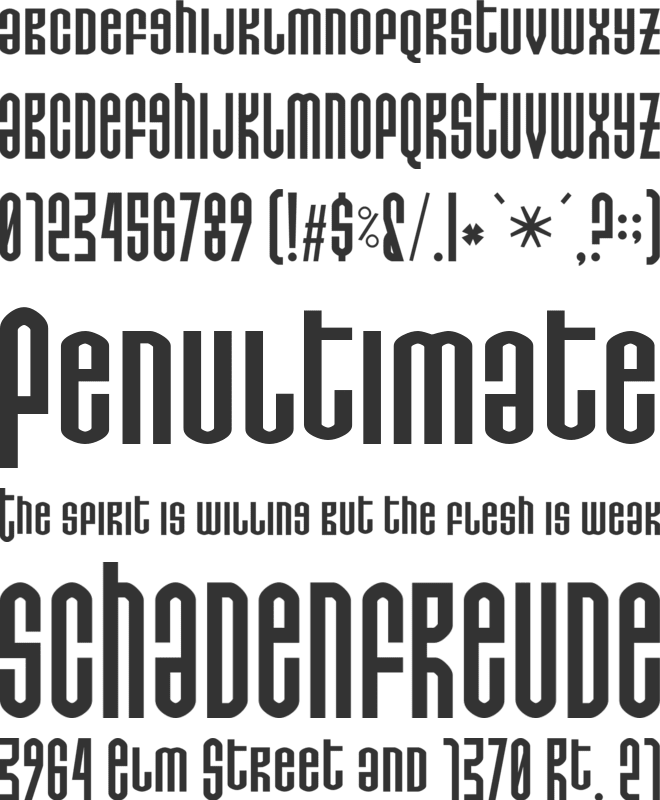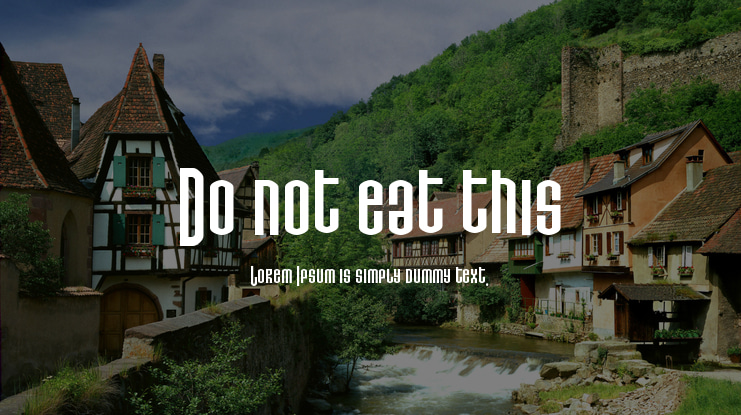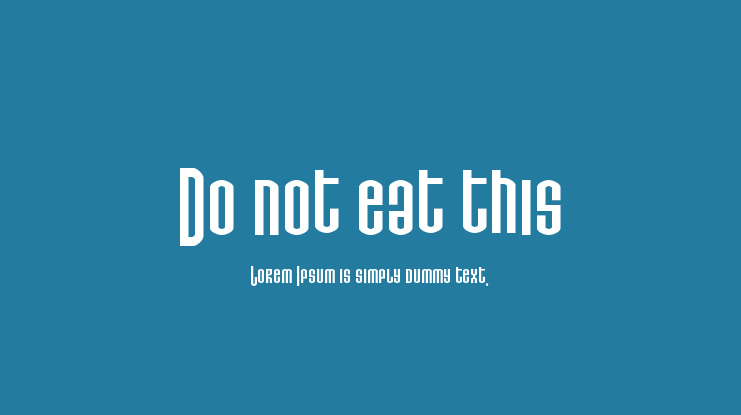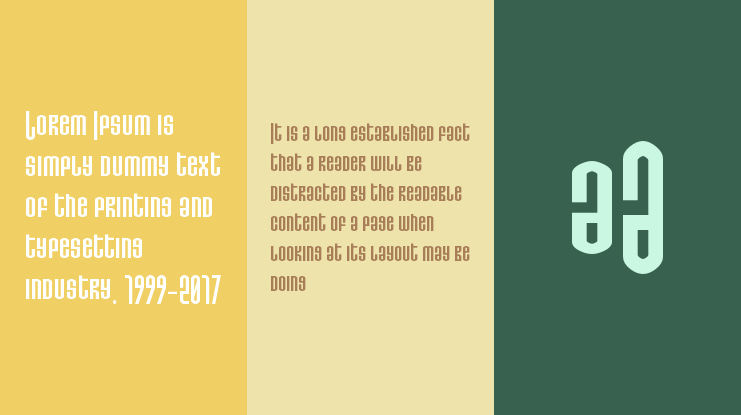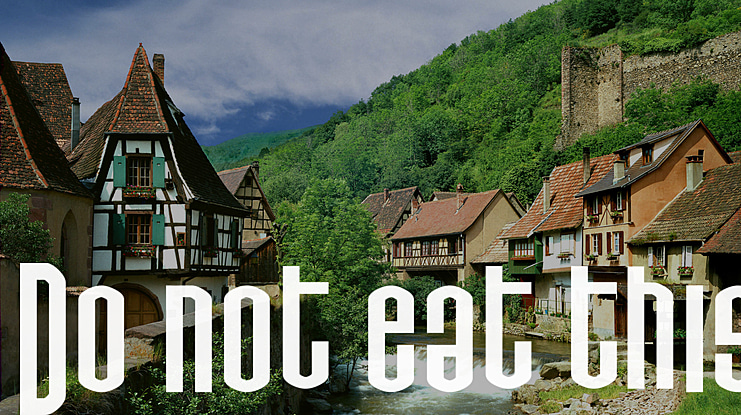
Do not eat this Font Family
The font is named after the description on those little bags that prevents moisture in packages! And it's a request not to eat the font! 8)